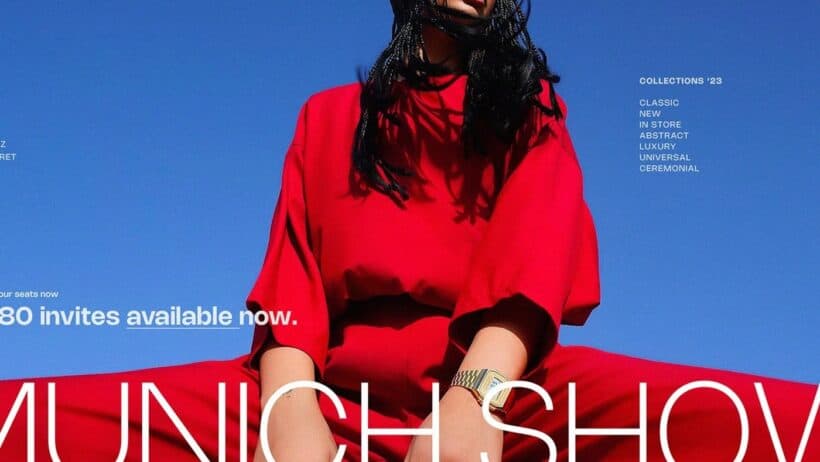
Nohemi: Swiss Precision, Modern Impact
As a branding curator, I recommend exploring Nohemi for its precise Swiss design DNA. Rajesh Rajput’s variable display is built on modular grids and clean geometric curves. Large negative spaces establish a sharp visual rhythm, every outline aligns with exacting discipline. Technical contrast and meticulous spacing make headlines feel solid, readable, and architecturally bold. Use it for striking posters, tight editorial systems, or bold identity work that demands structure. Its nine smoothly scaling weights offer refined typographic hierarchy, and the family transitions cleanly across sizes and media. It is essential for disciplined, modern typographic systems.
Nohemi pairs beautifully with wider grotesques, generating clear hierarchy for retail, editorial, and brand systems. Designers will value its tactile rhythm, precise glyph dimensions, and consistent spacing across scales. The saturated orange red scenes show its graphic punch, while the lighter weights provide airy counterpoints. It suits physical posters and digital layouts, and it keeps legibility on mobile devices. For identity architects, Nohemi is a modern reference, a restrained but expressive voice for long term systems. Dive into Rajput’s Behance project to inspect spacing, weights, and contextual applications closely. This is essential study material now.